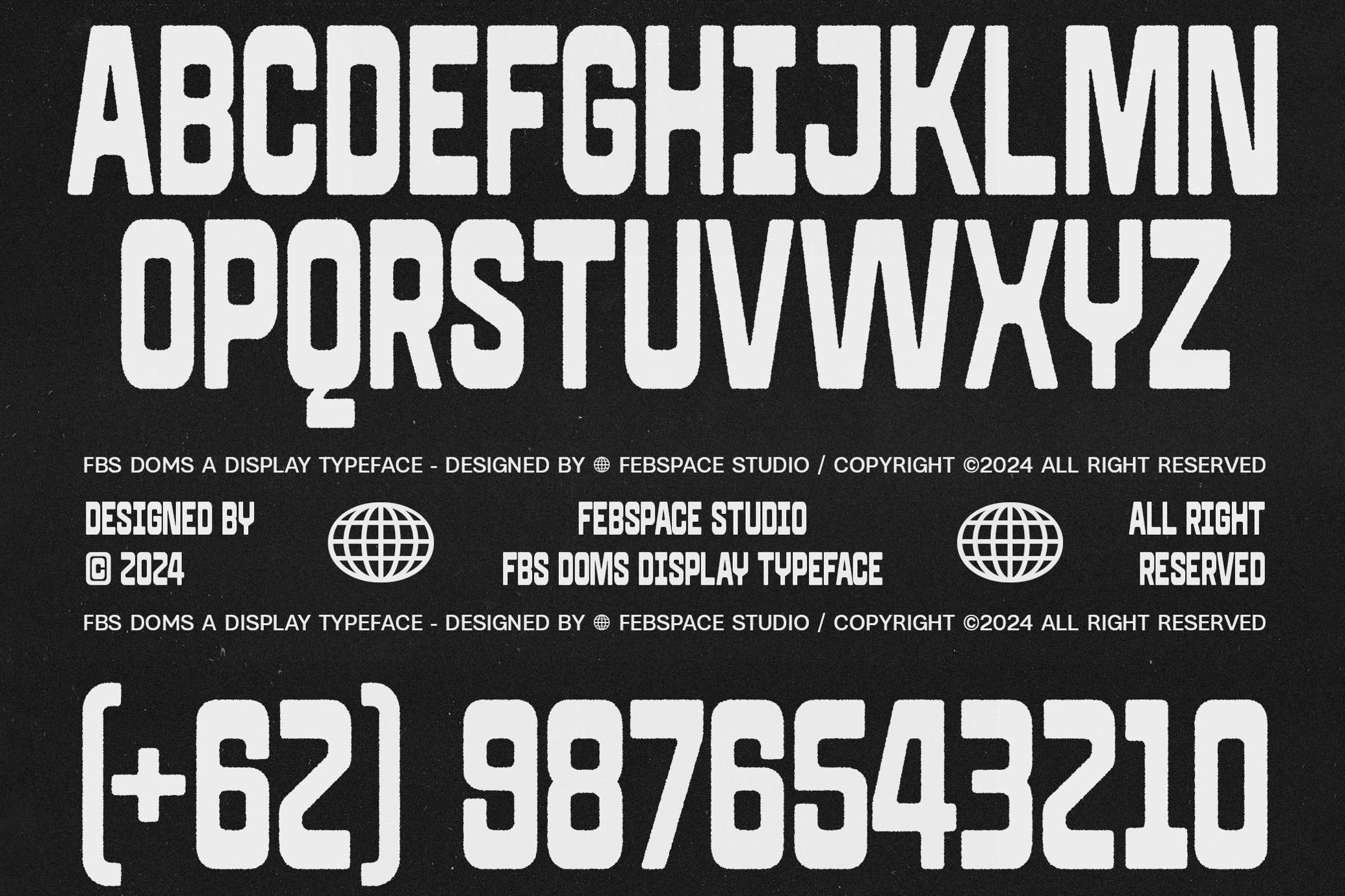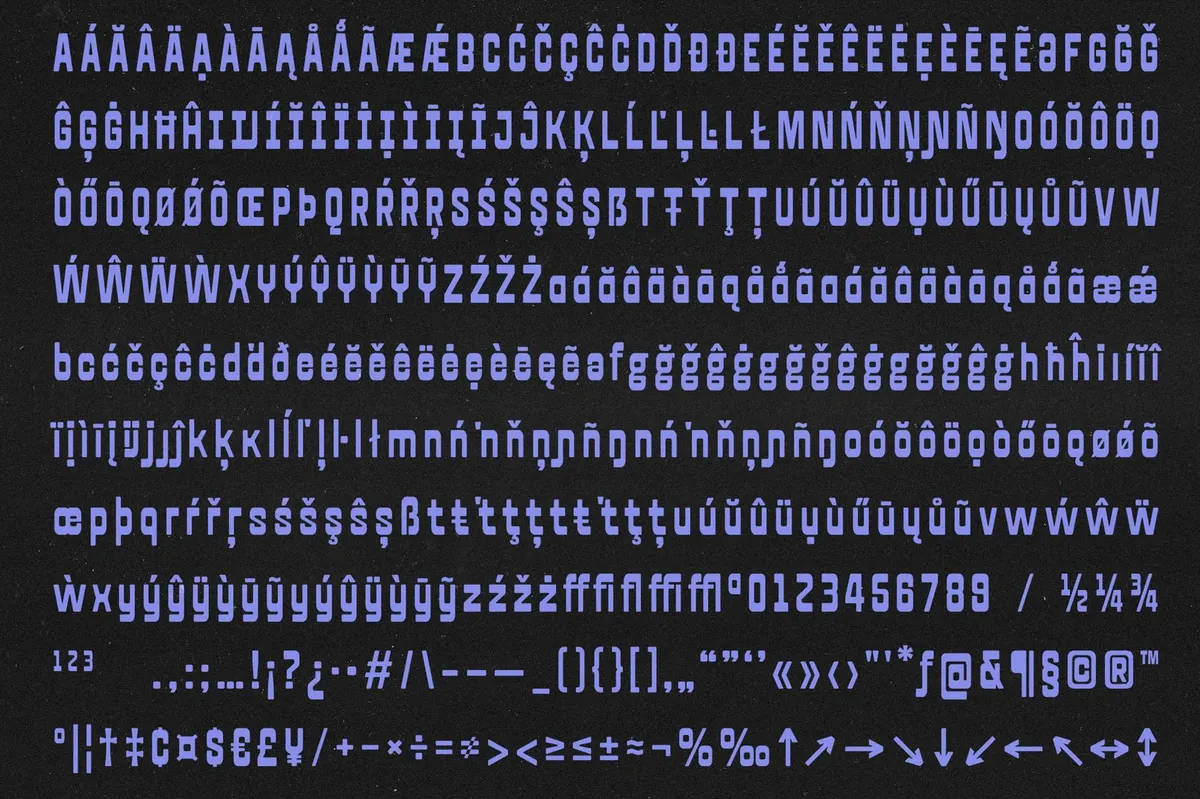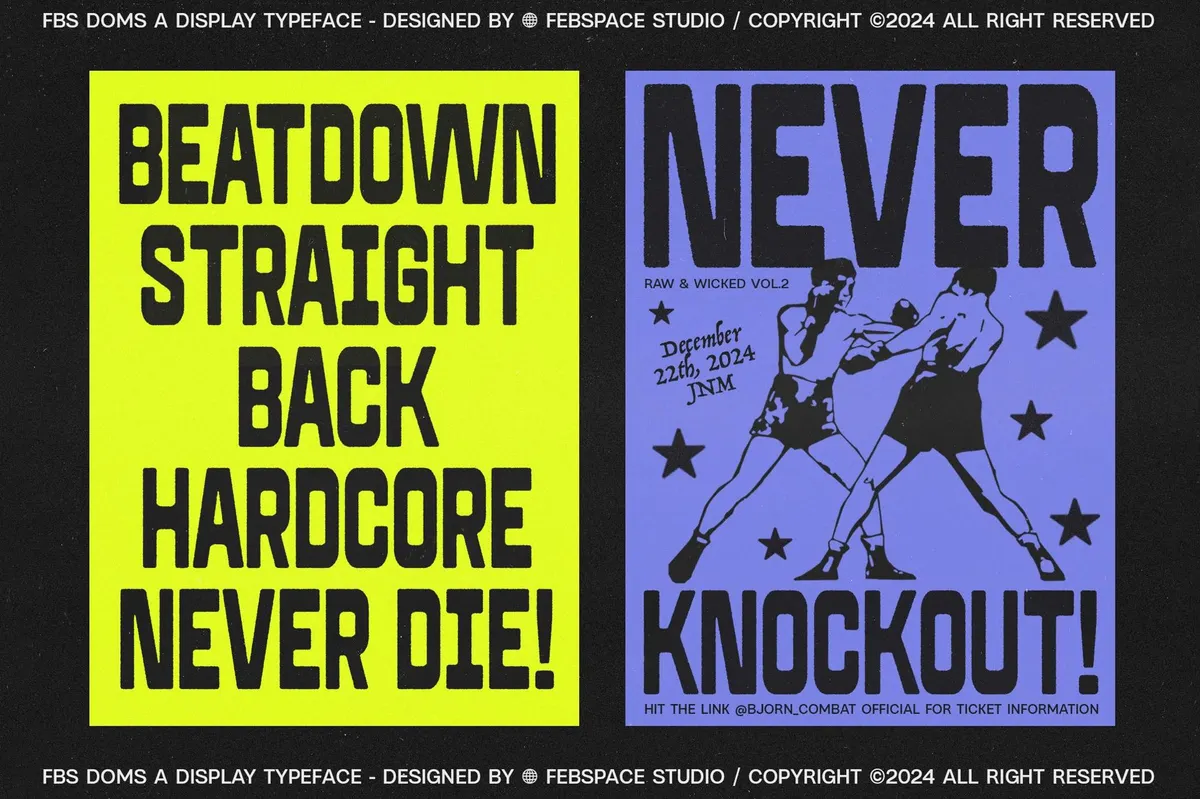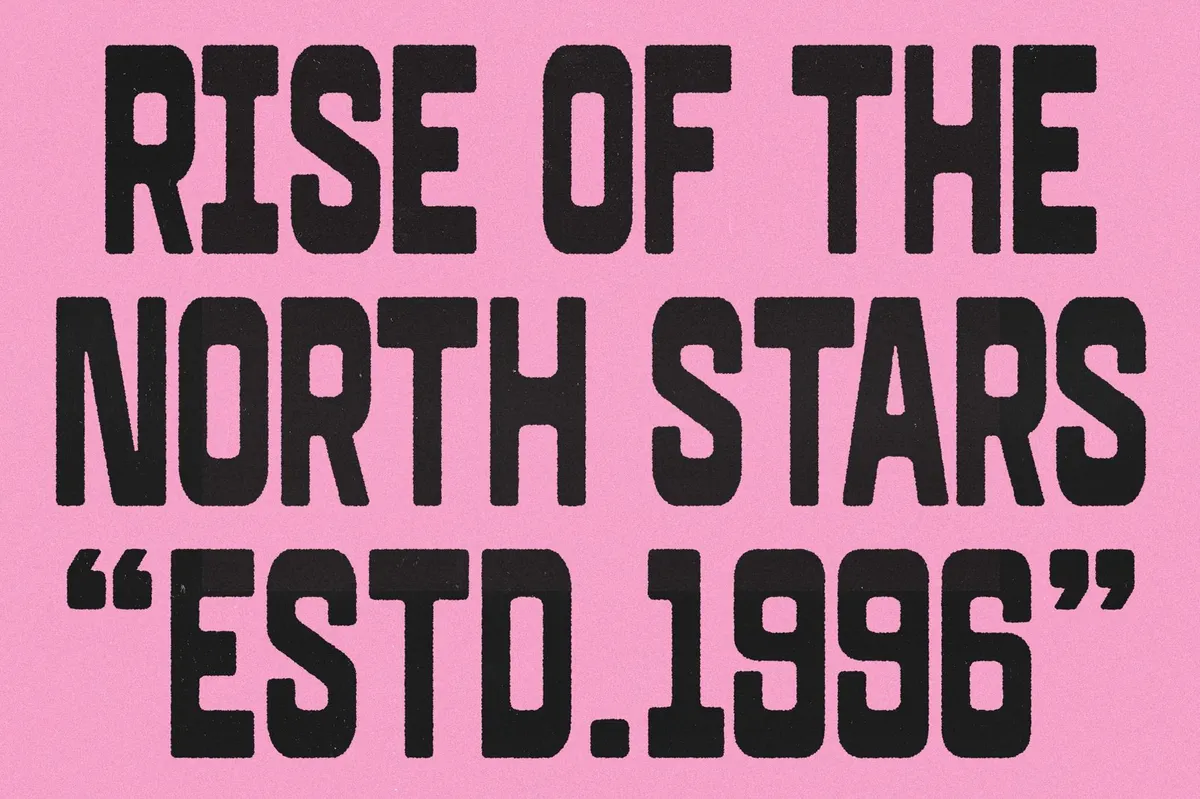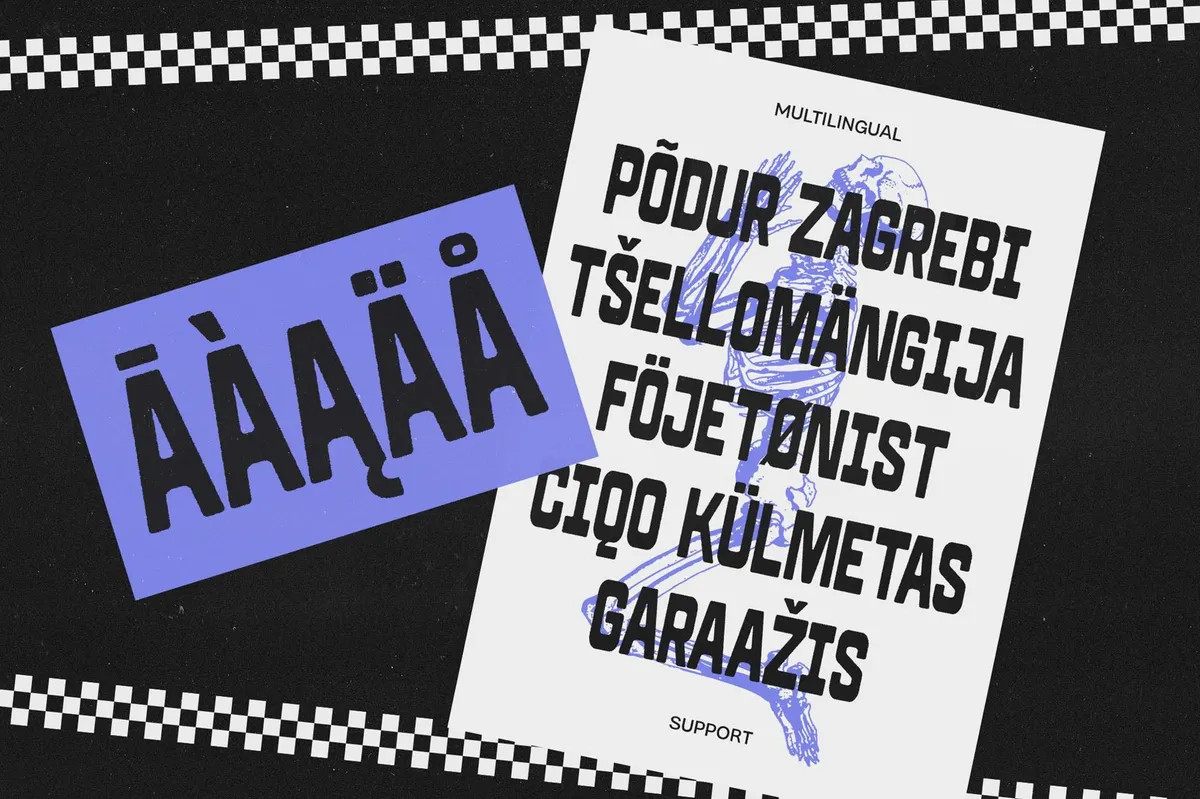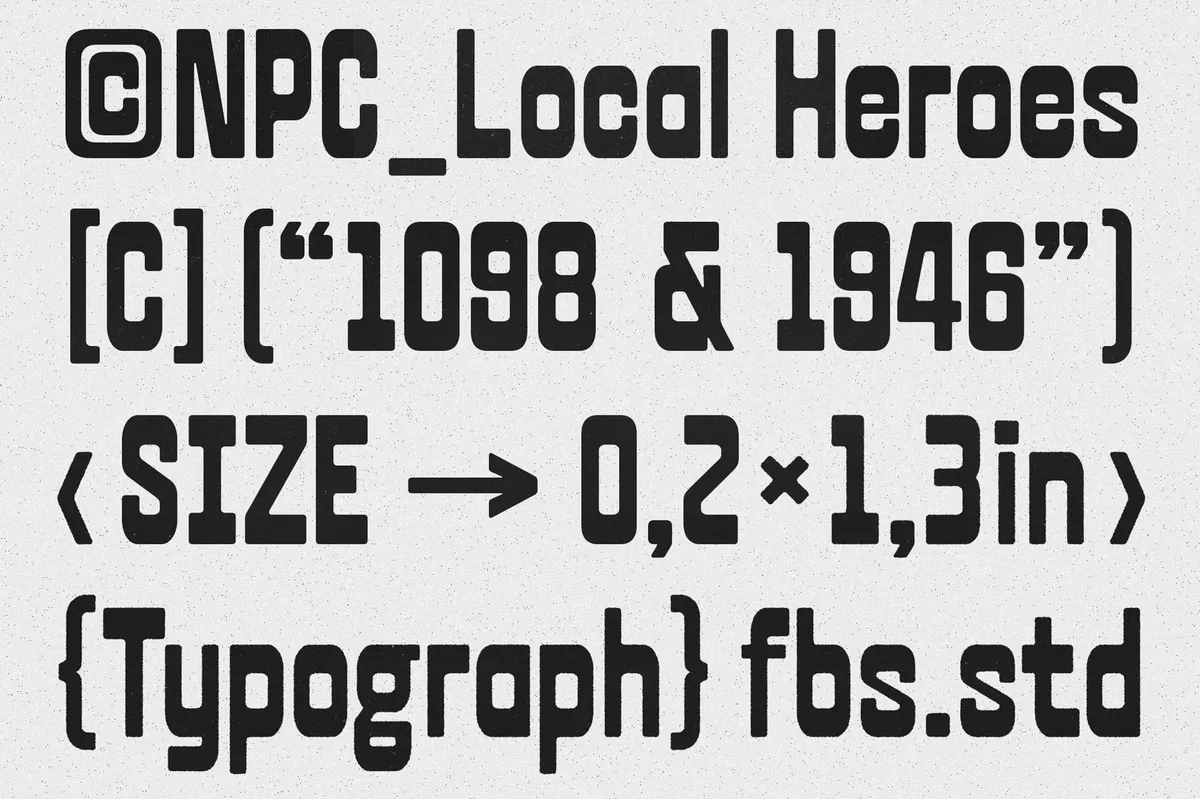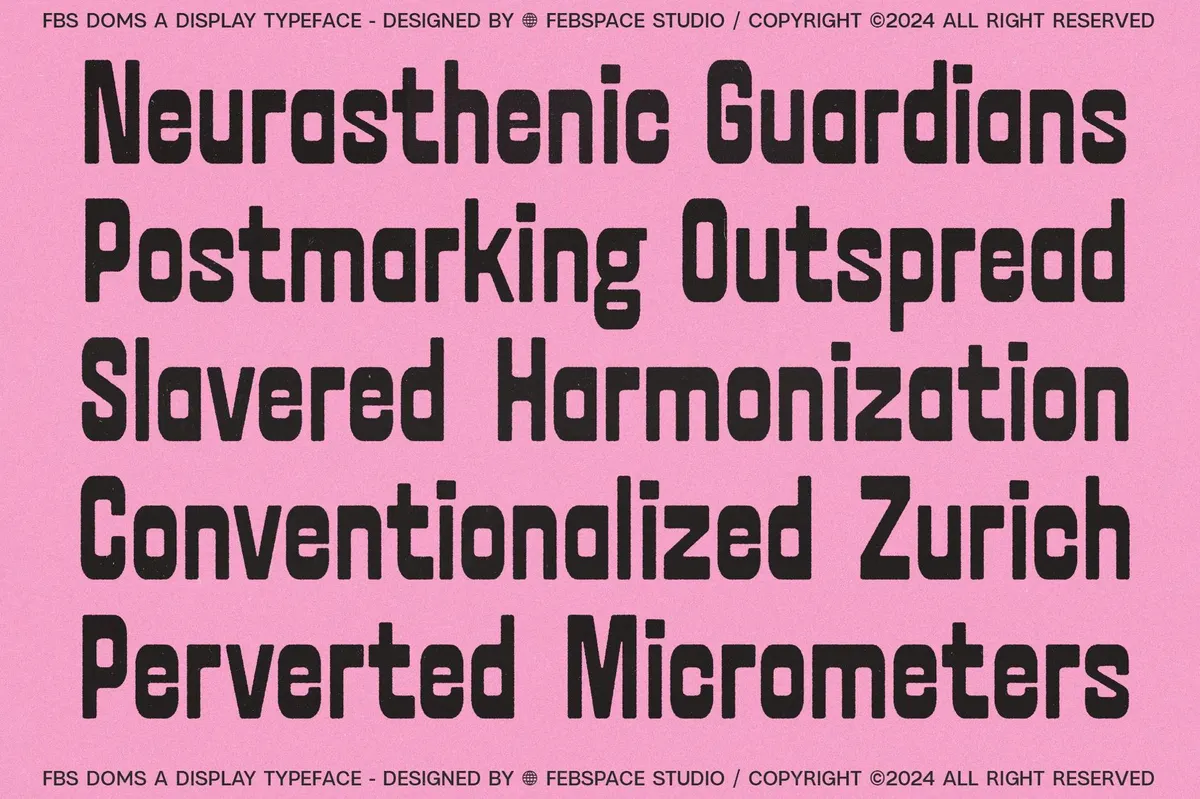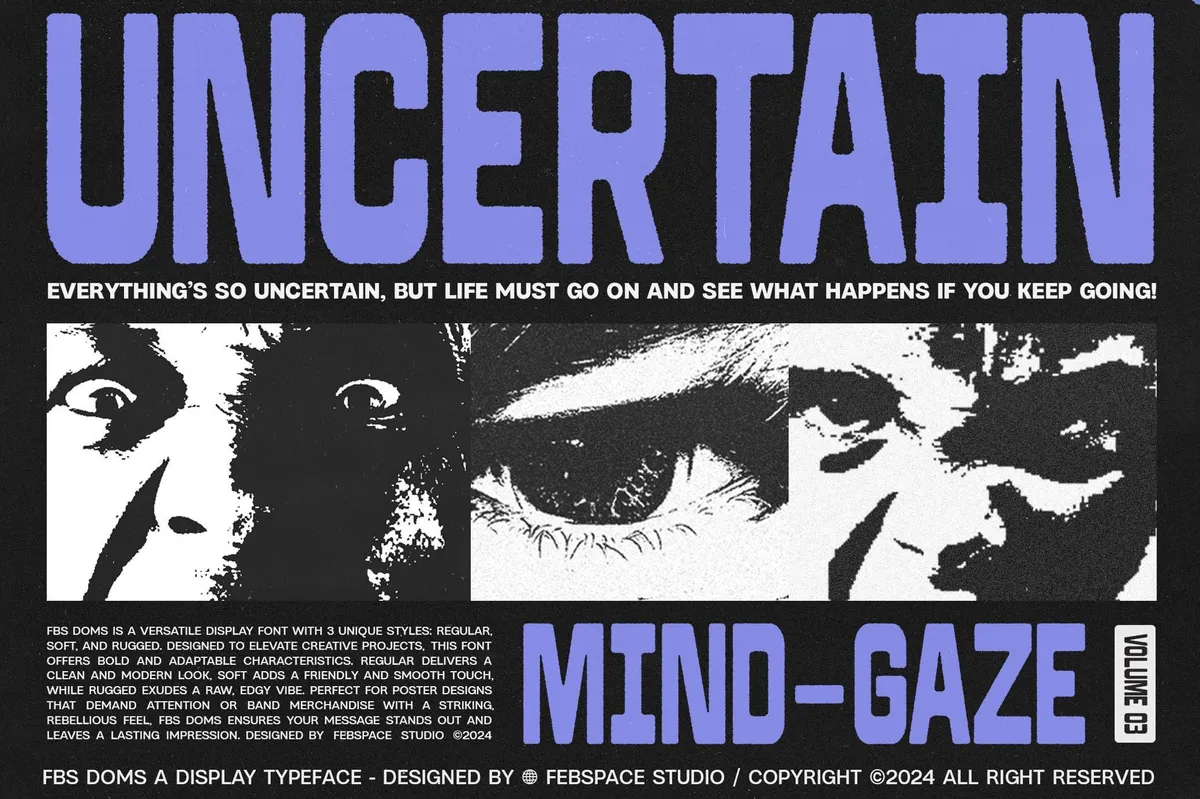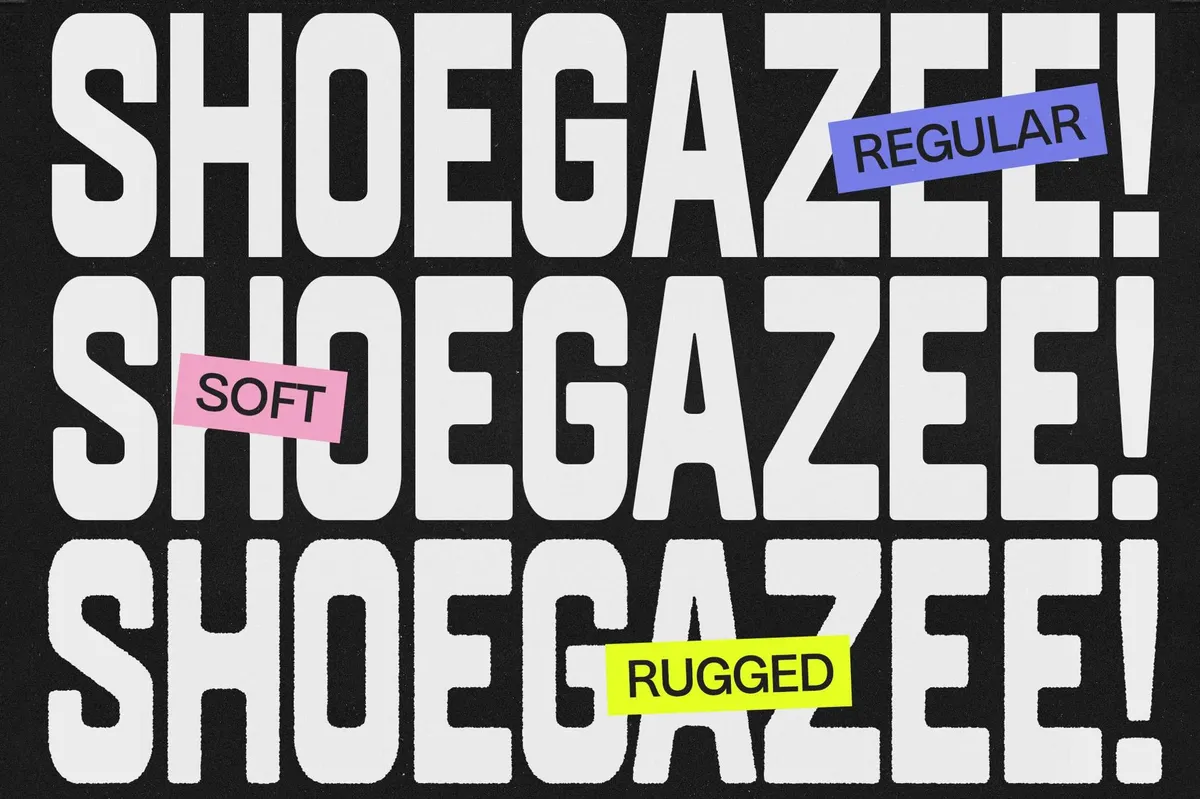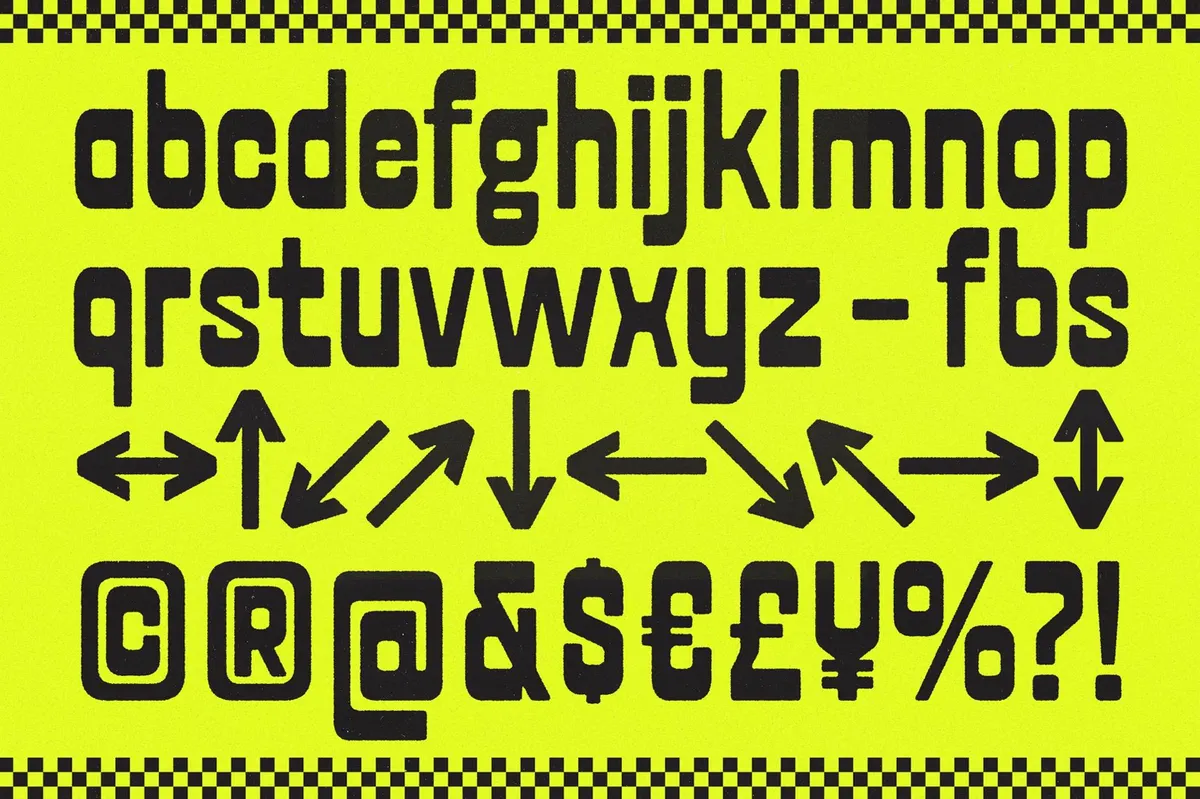
FBS DOMS Versatile Display
FBS DOMS isn’t here to make friends. This is typography with bark, bite, and busted teeth. Designed in three variations (Regular, Soft, and Rugged), it leans into the aesthetics of protest posters, underground flyers, and bootleg zines. Whether you choose the raw concrete feel of Rugged or the smoothed-down defiance of Soft, every glyph feels like it’s been screen-printed in urgency.
Brutalist to the core, FBS DOMS stamps hard. You’ll find it at home on album covers, heavy-duty branding, rave tickets, or editorial spreads. Its multilingual support and full character set expand its range, but the attitude stays the same — loud, bold, and built for chaos.